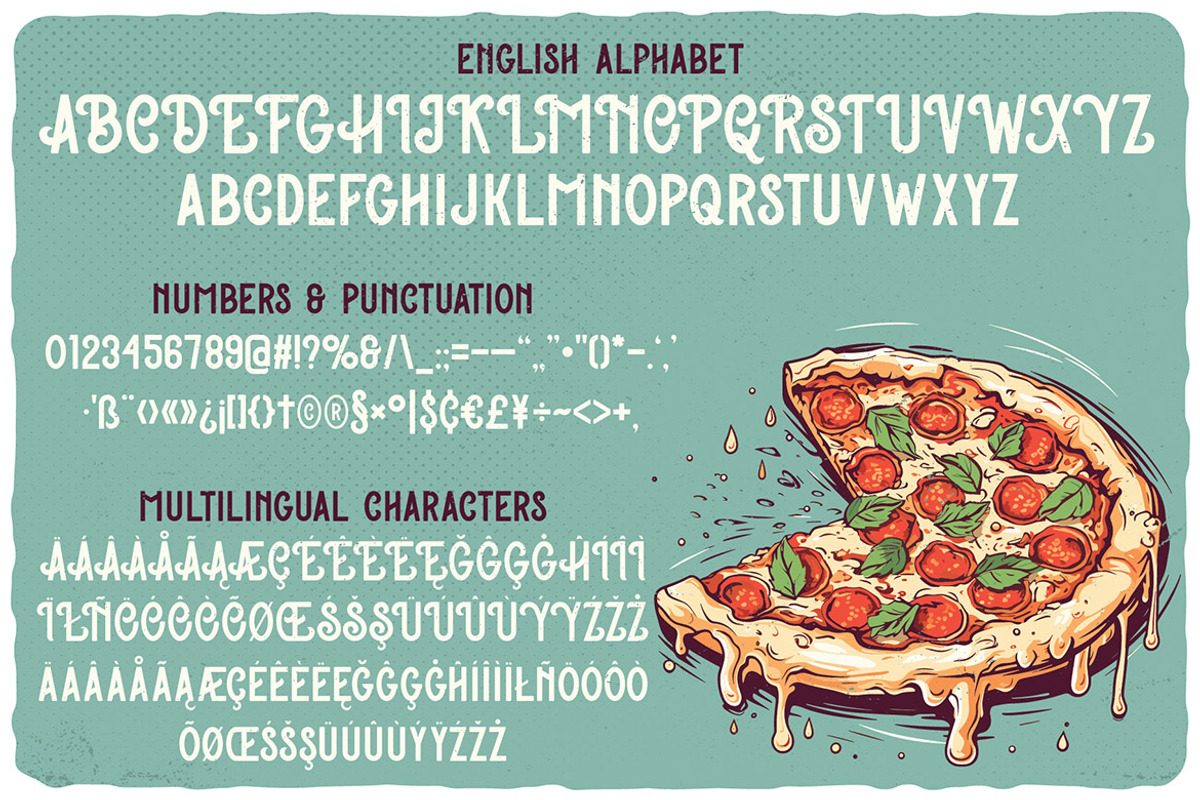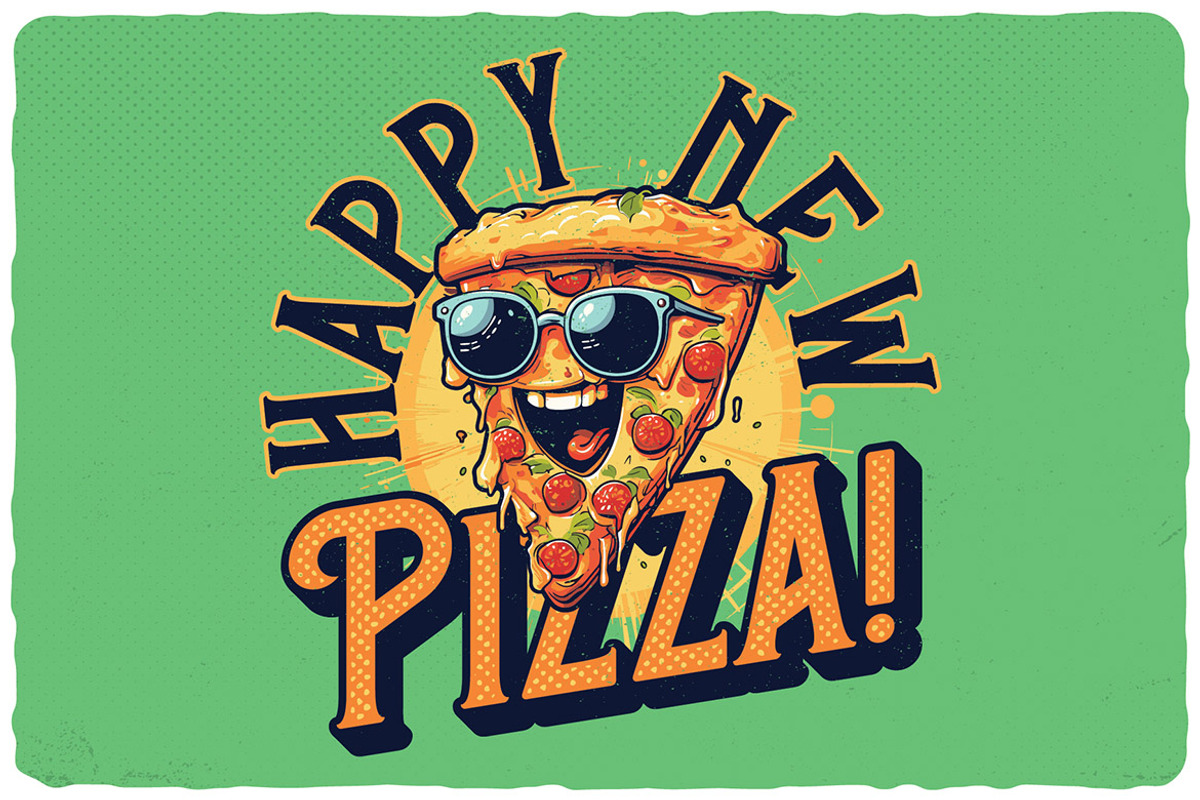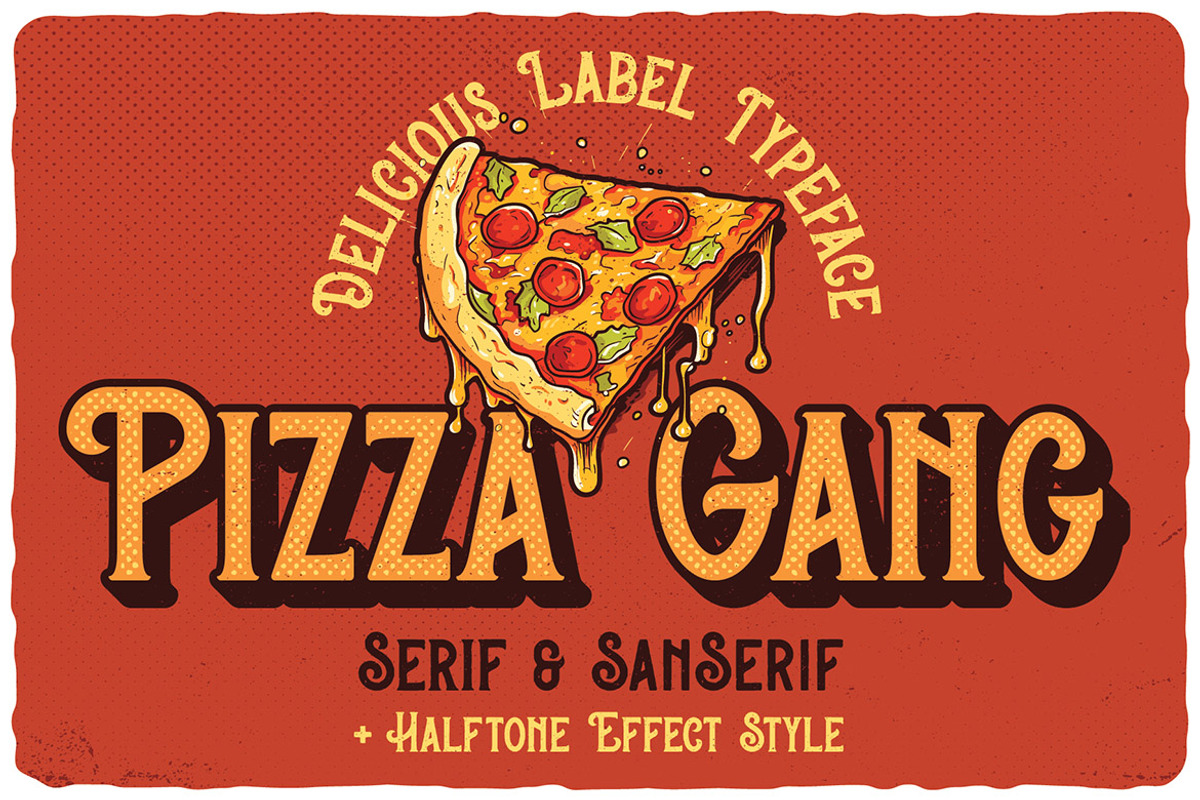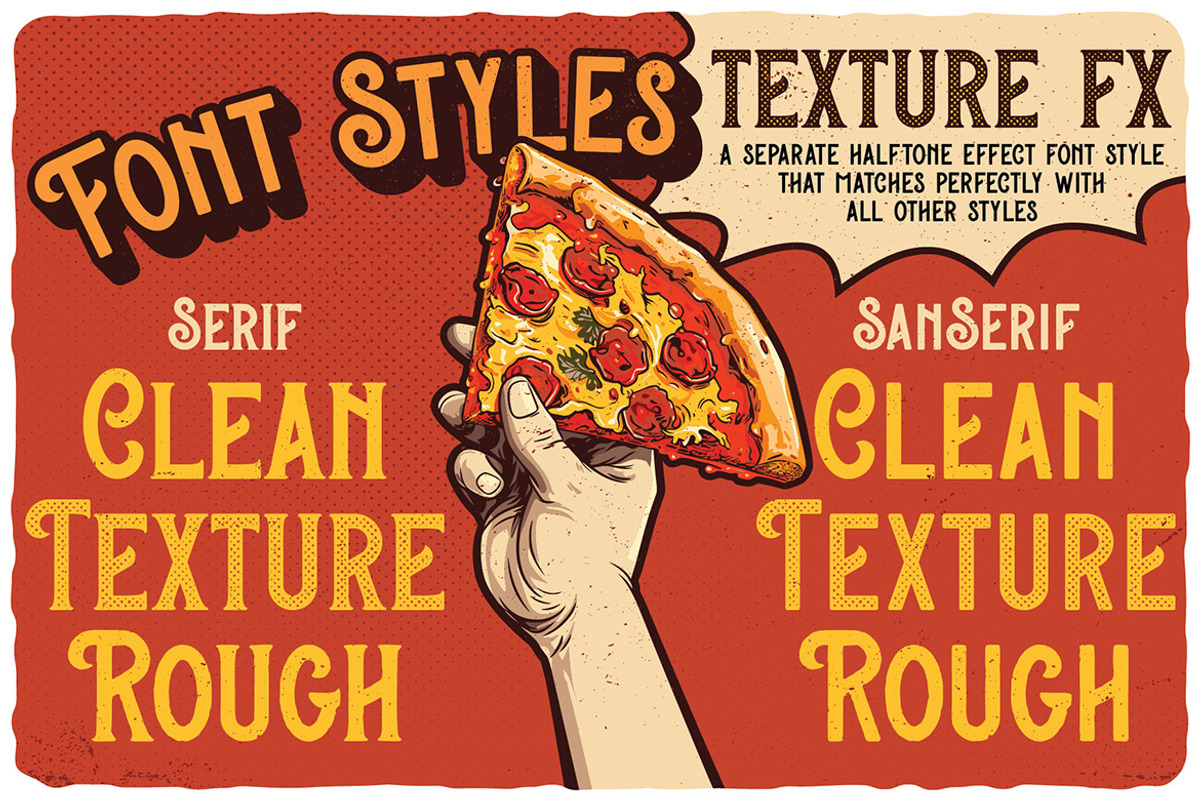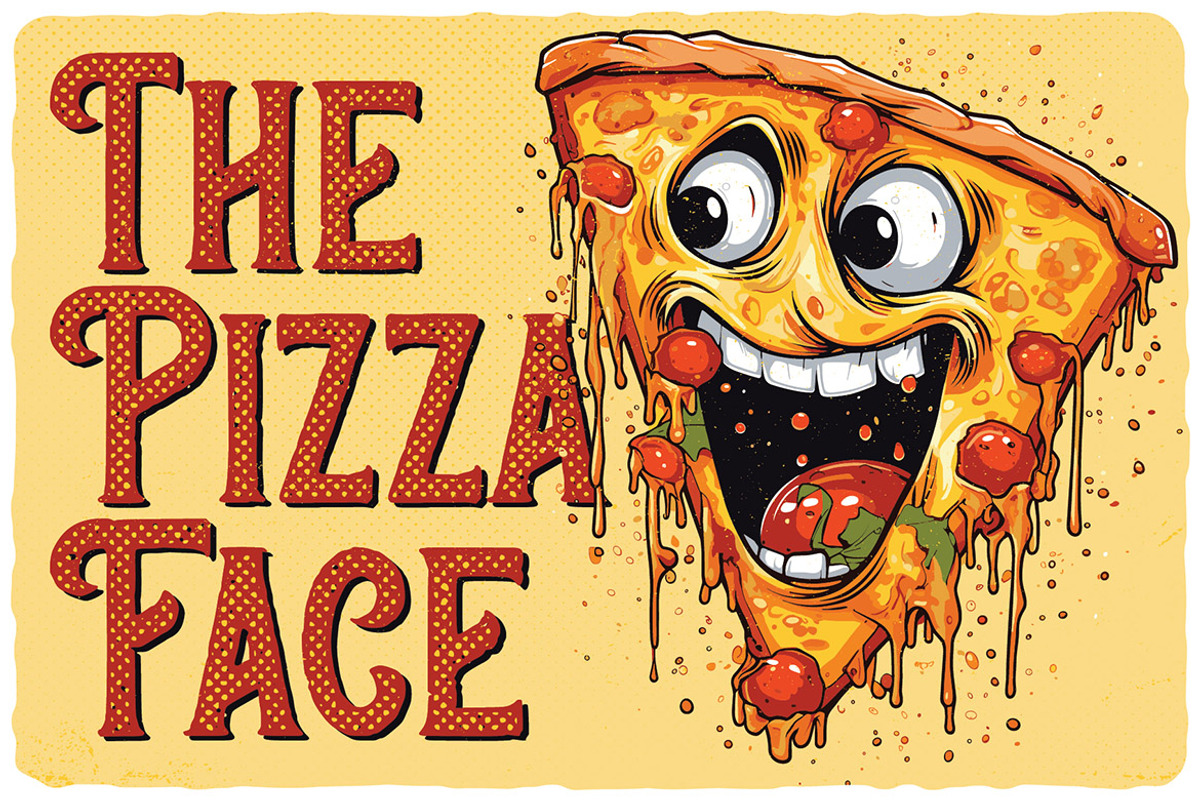
Pizza Gang - Serif & Sans Serif
Unique, vintage, retro, creative & playful serif & sans serif font family. Comes with multilingual support - great for your new logo or branding project.
- Great for retro or rustic style branding projects